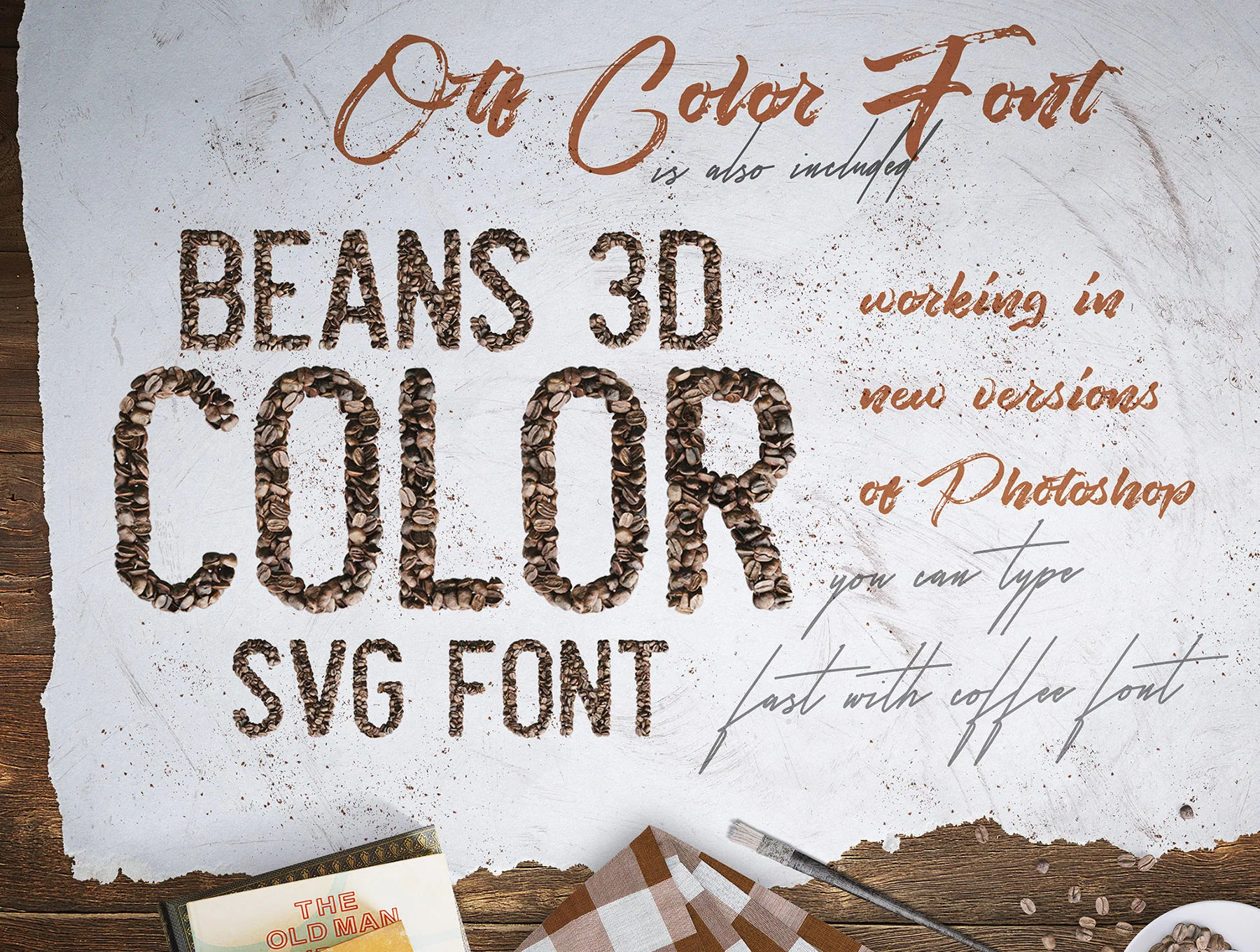
Coffee Beans - Font & Lettering
Coffee bean-inspired lettering with realistic graphic elements
Color OTF typeface, compatible only with Photoshop CC 2017+, Illustrator CC 2018, and select Mac apps